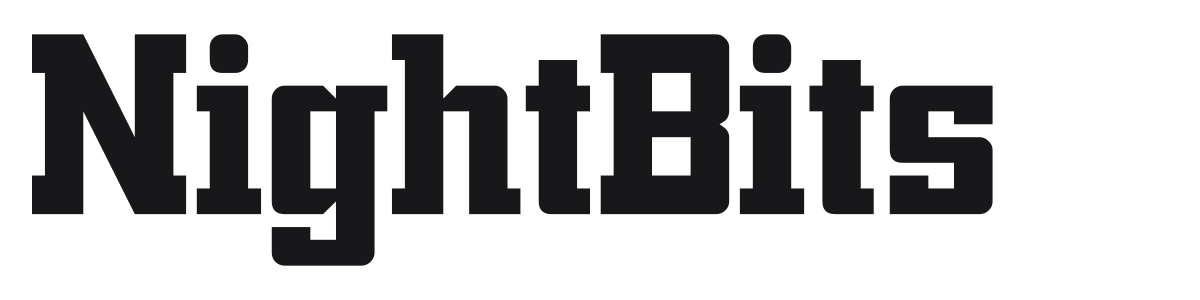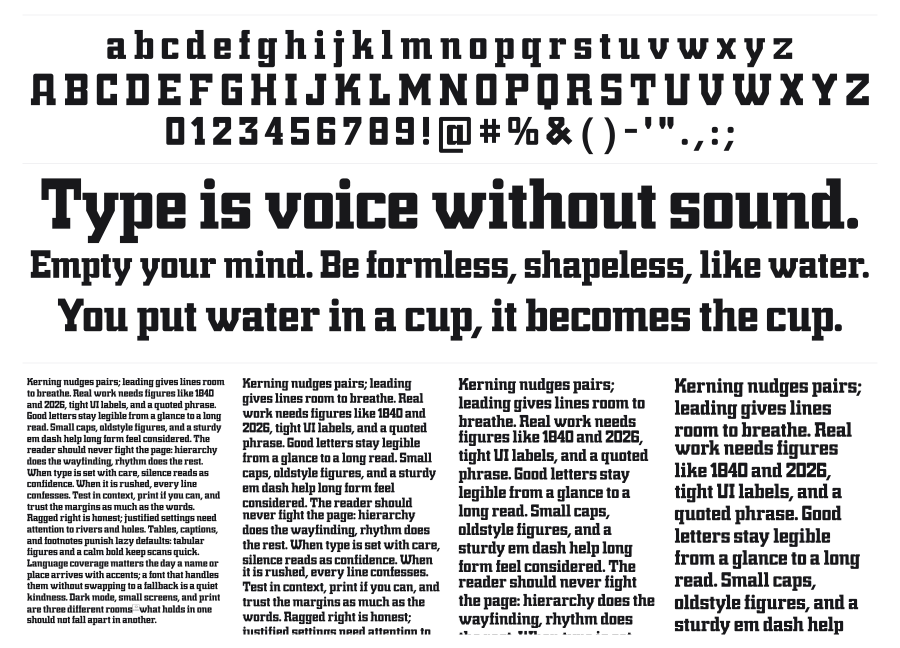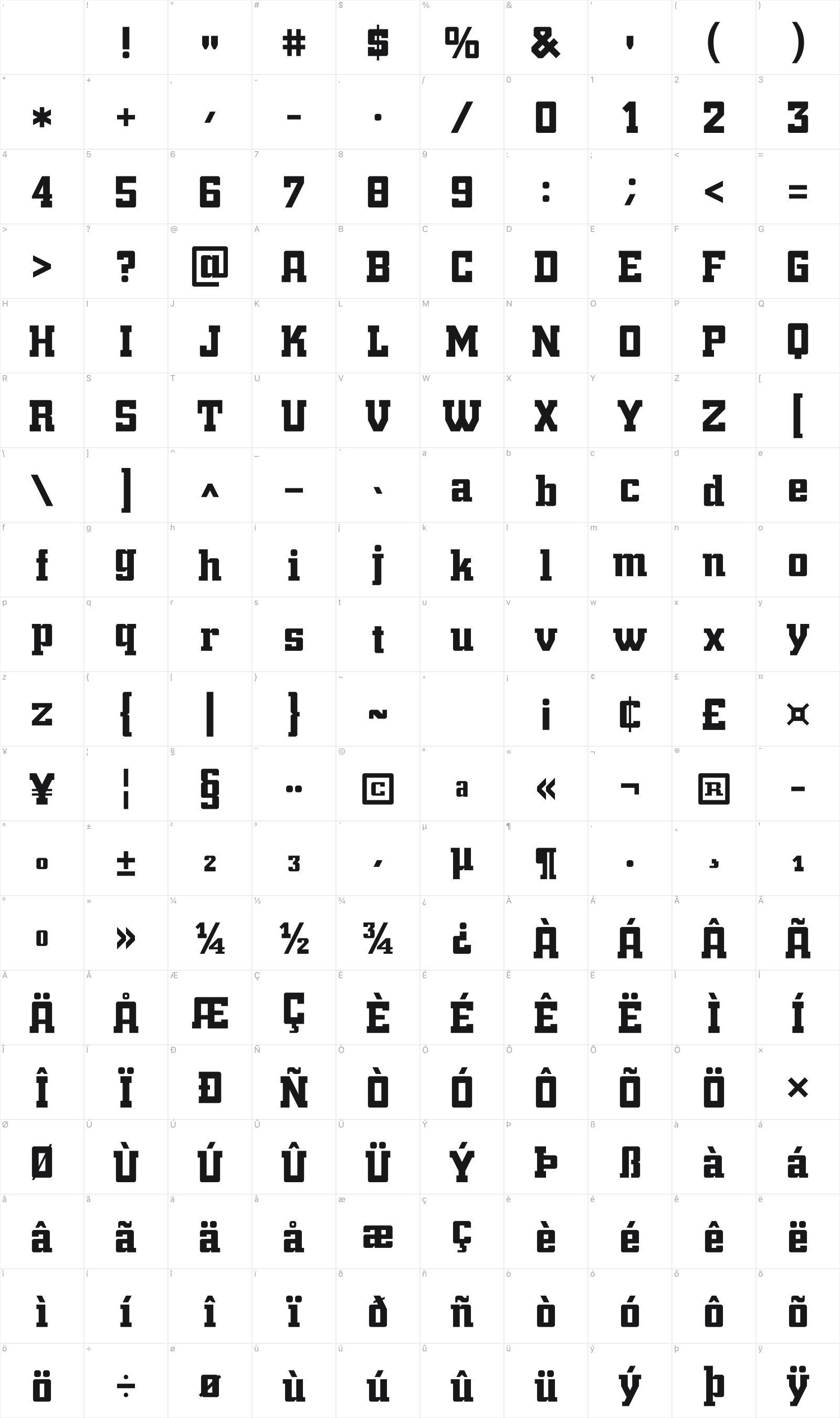
NightBits
NightBits is a heavy condensed slab serif with thick, near-monoweight strokes and tightly packed proportions. The sturdy rectangular serifs and compressed width give it a no-nonsense, muscular character reminiscent of 19th-century wood type and sports headlines. Created by Jeroen Saey, it works hard at large sizes wherever visual weight and impact are the priority.